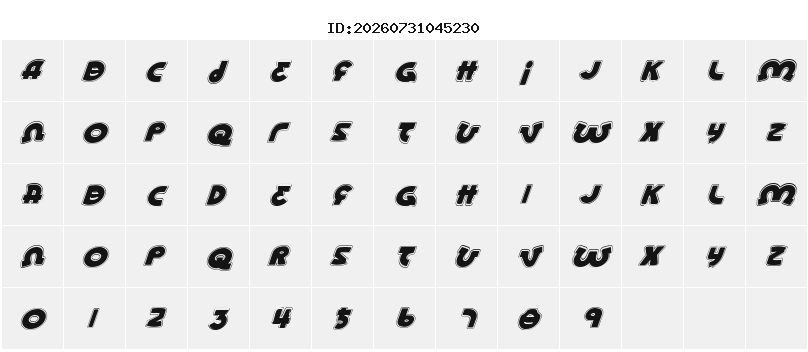
Lionel Academy Italic Preview
• Font Name: Lionel Academy Italic
About Lionel Academy Italic.ttf
Lionel Academy Italic.ttf is a modern, elegant sans-serif font designed for ultimate readability and visual harmony. Perfect for branding, headlines, web design, and print materials.